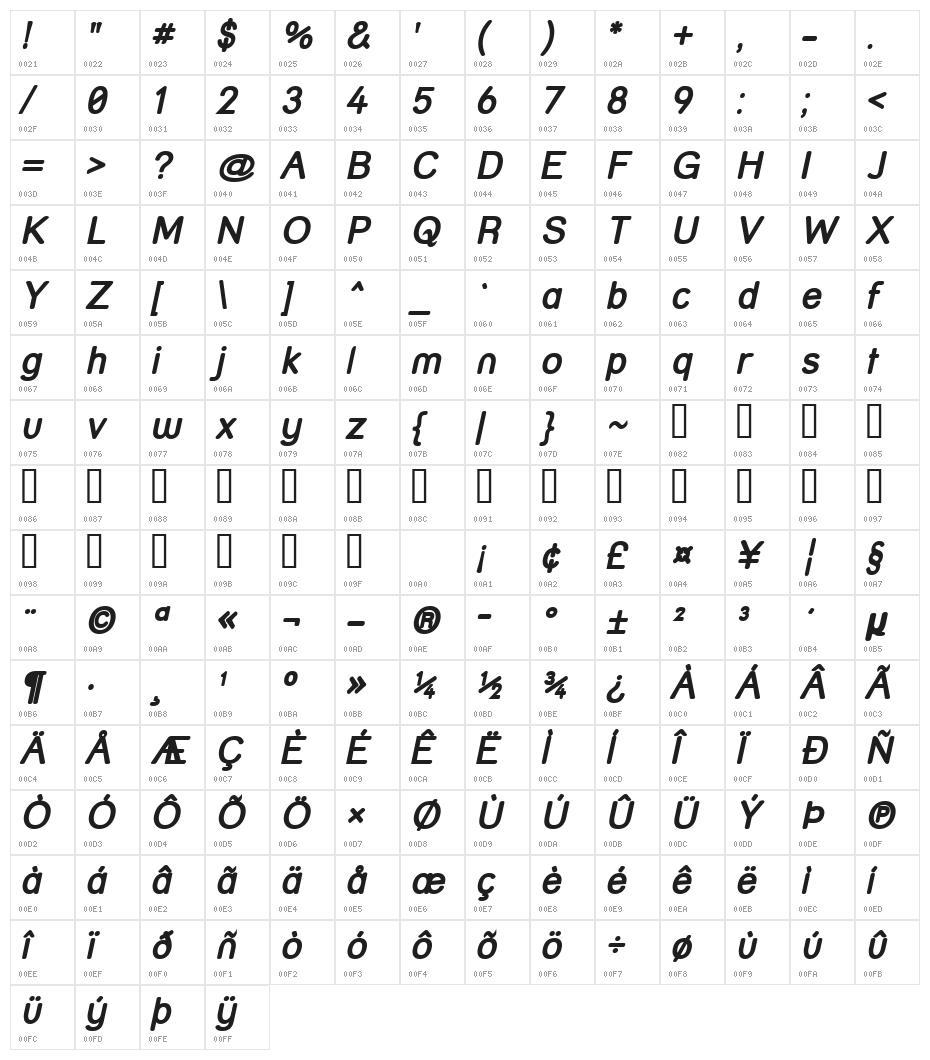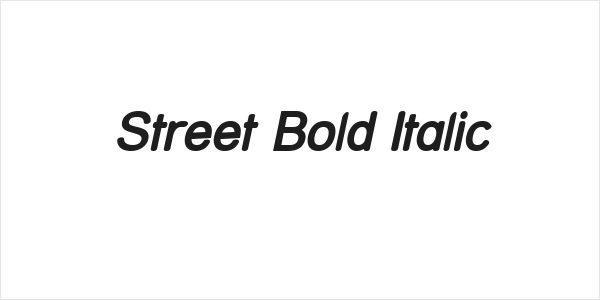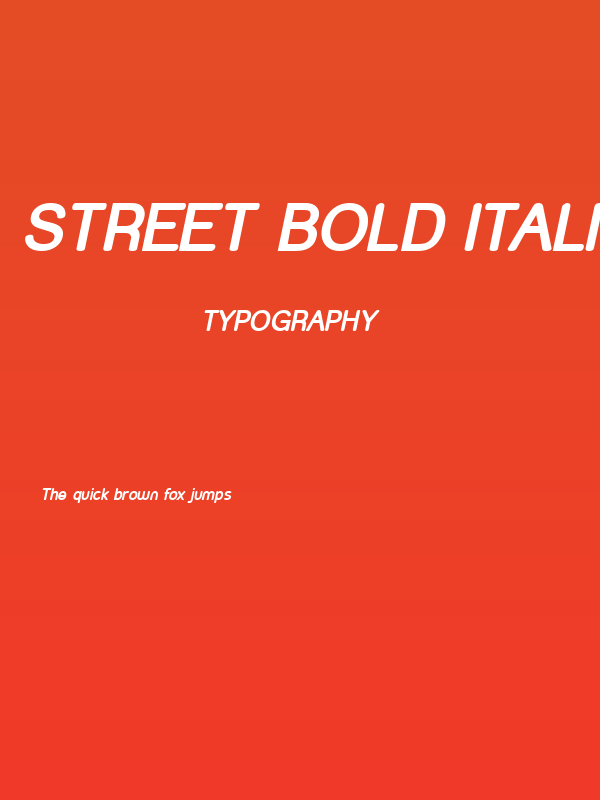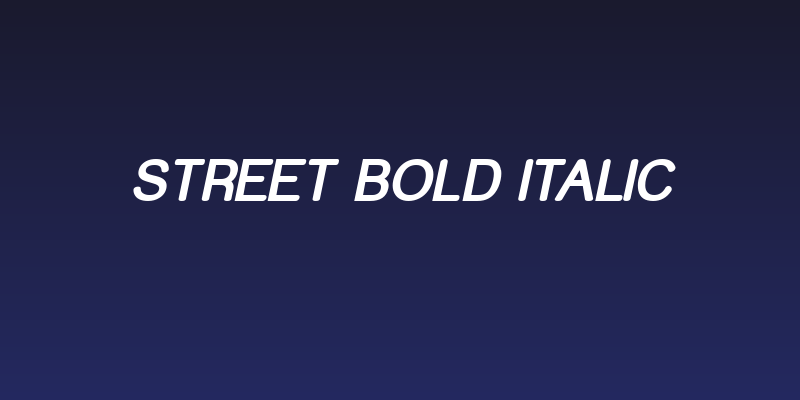
Street Bold Italic Font
Street Bold Italic Description
This font features a bold and italicized style, characterized by its smooth curves and slightly slanted orientation. The letters are well-rounded with a consistent stroke width, providing a modern and dynamic appearance. Its boldness ensures strong visibility, making it suitable for attention-grabbing headlines. The italic slant adds a sense of motion and elegance, enhancing its appeal for creative and contemporary designs. The numerals and special characters maintain the same bold and slanted style, ensuring uniformity across all characters.
| Use Case | Headlines, Logos, Advertising |
| Proposed Projects | Ideal for branding, advertising, and editorial design projects that require a modern and bold statement. |